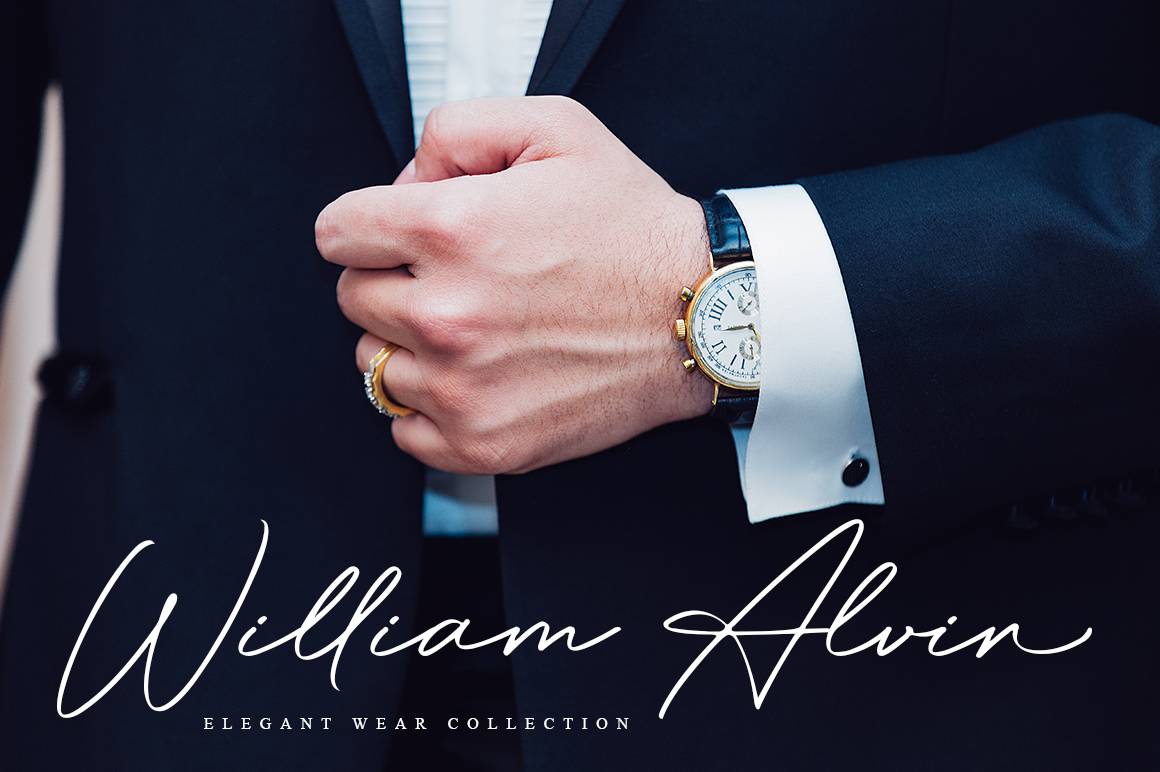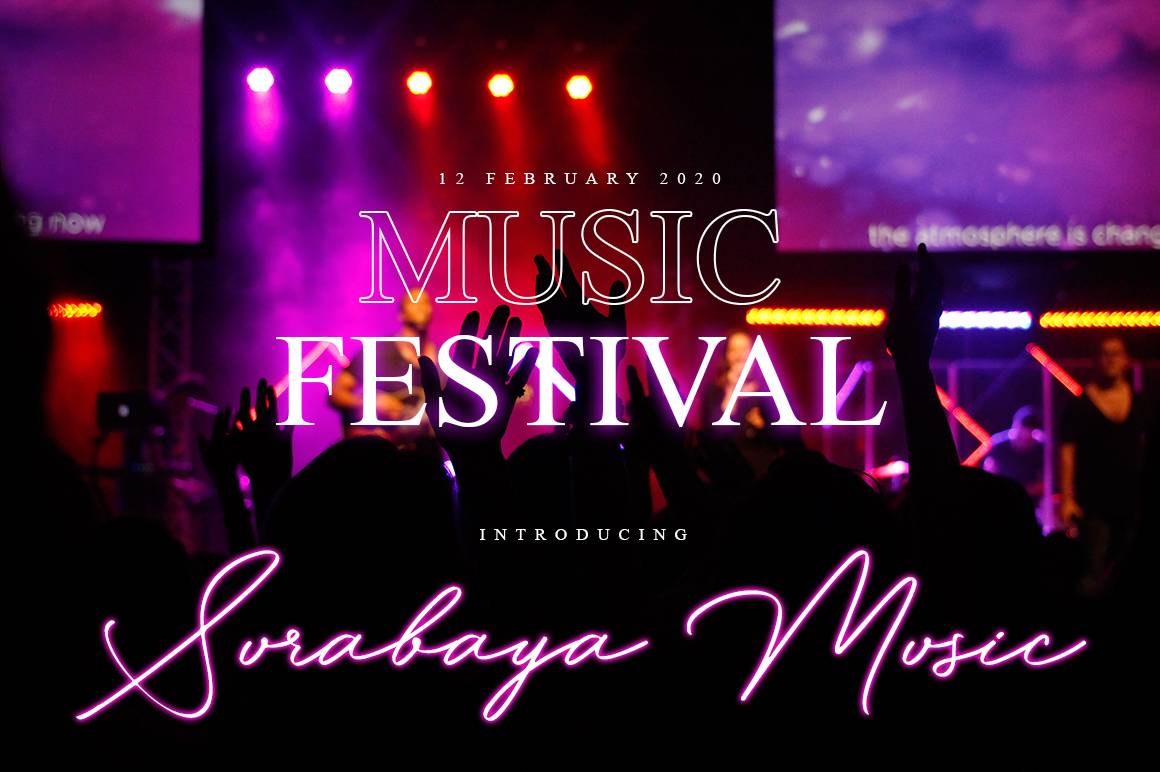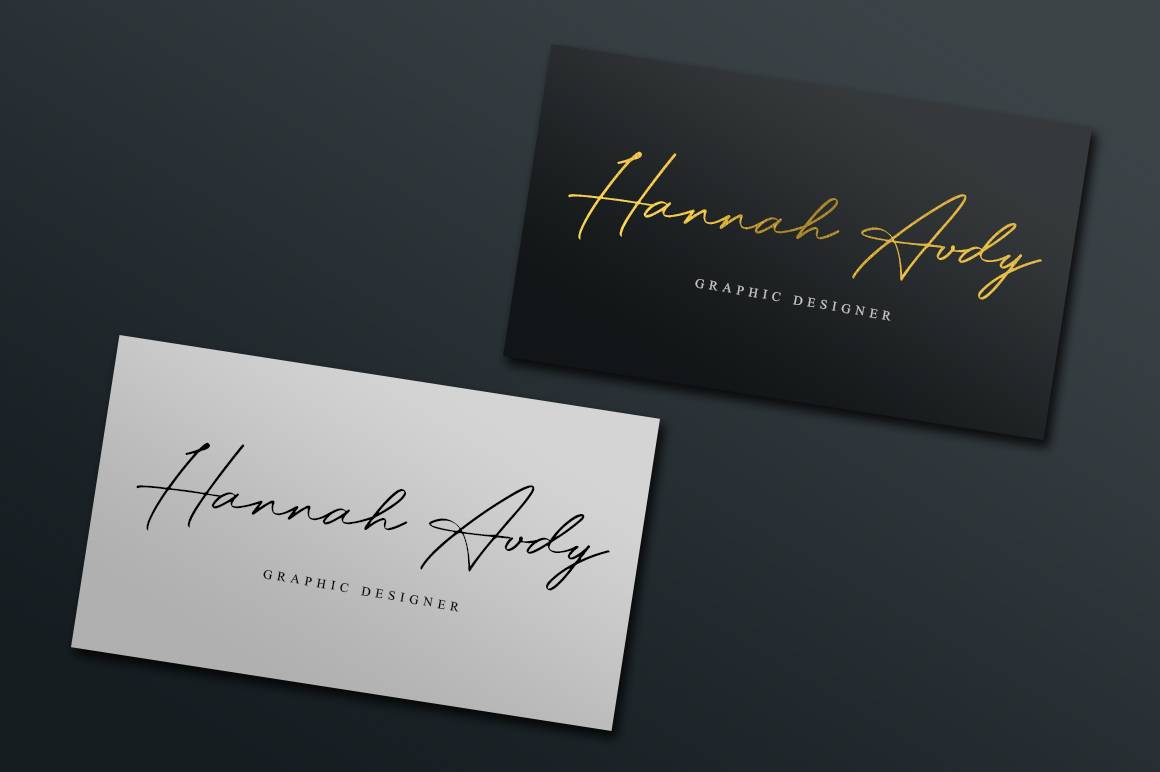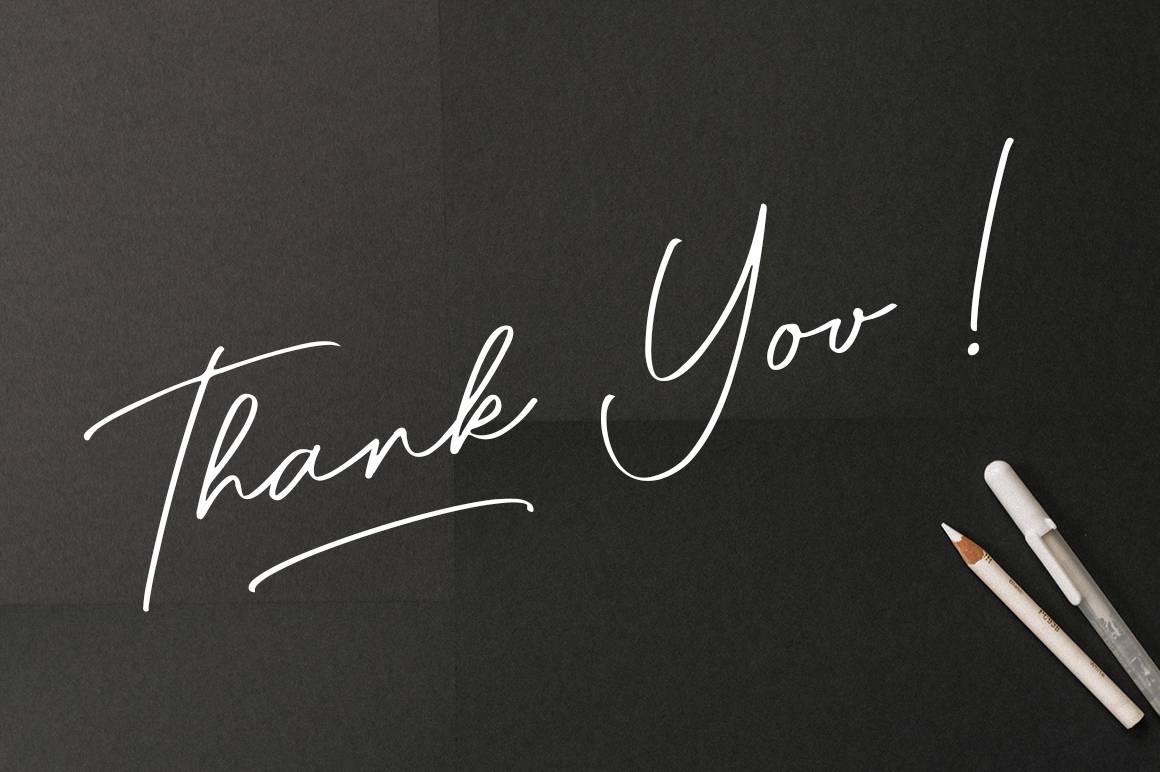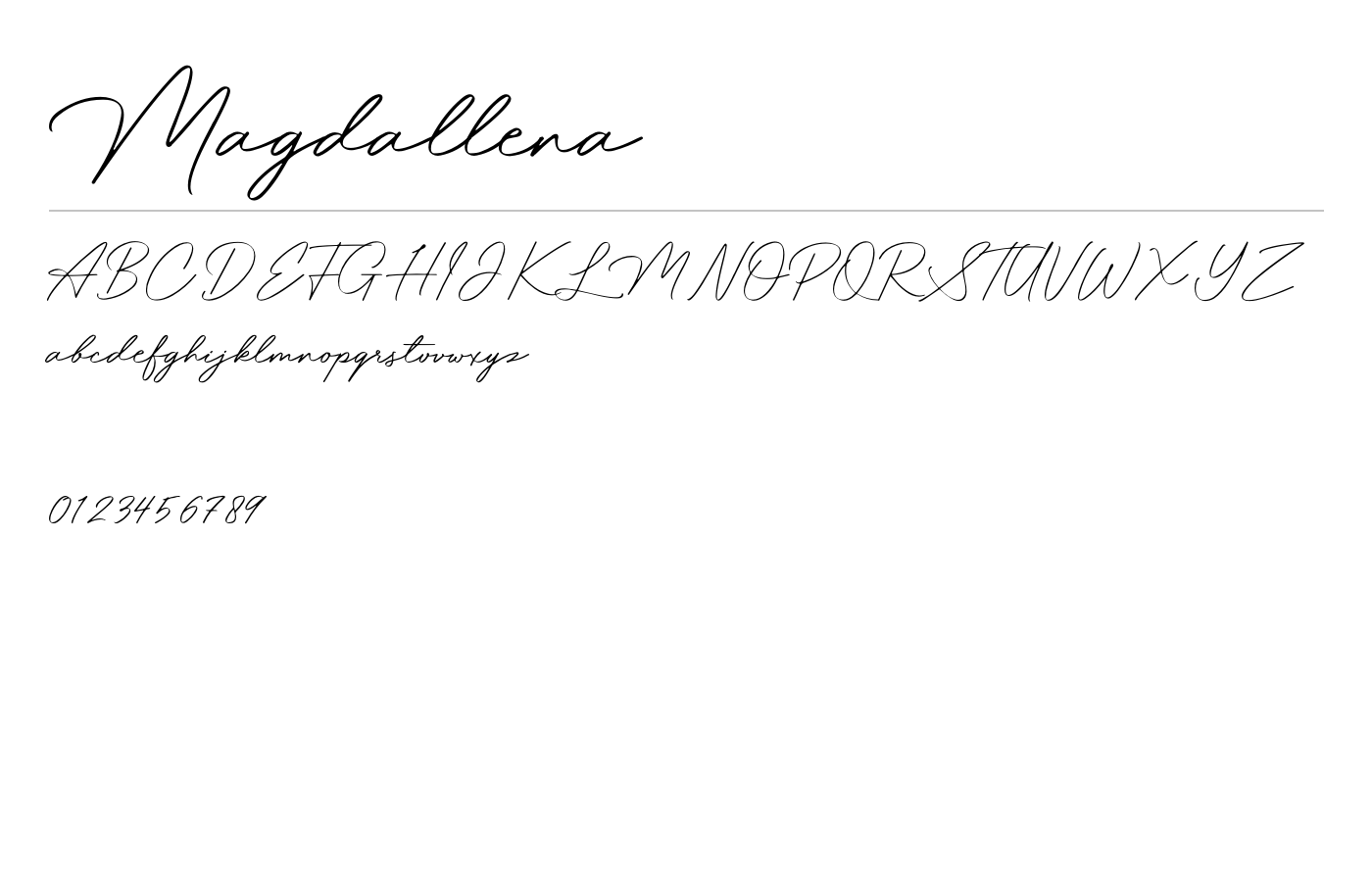
Magdallena is a delicate, elegant script font with thin, flowing strokes that mimic natural handwriting. Its light weight and smooth, connected letterforms create a refined and personal feel, perfect for invitations, branding, and projects that need a graceful, sophisticated touch. This font works beautifully for luxury and fashion designs or any context where a stylish handwritten look is desired.
Magdallena Font
About Magdallena Font